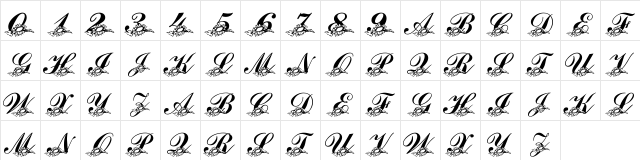
LMS Sunflowers for Jodie Regular
Design Context for LMS Sunflowers for Jodie Typeface
LMS Sunflowers for Jodie is a composed and adaptable typeface that performs quietly and consistently across a wide range of design contexts.